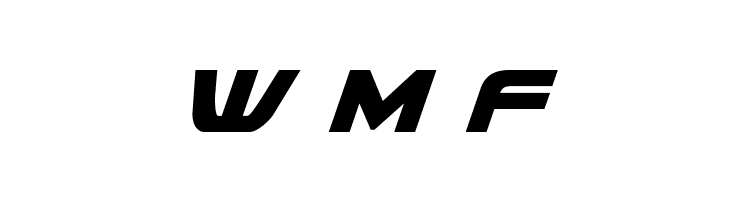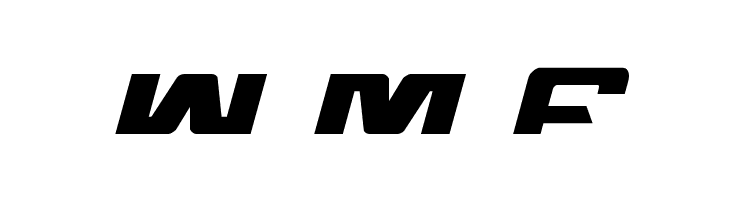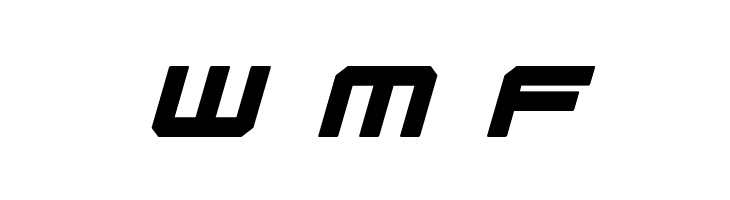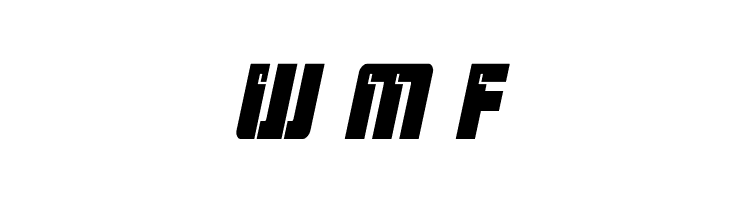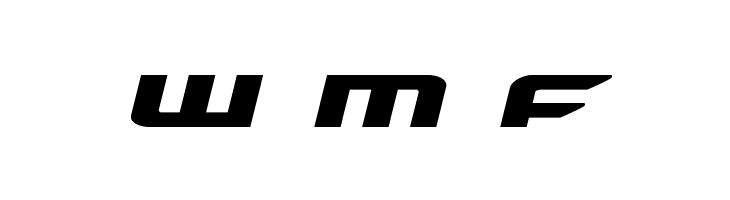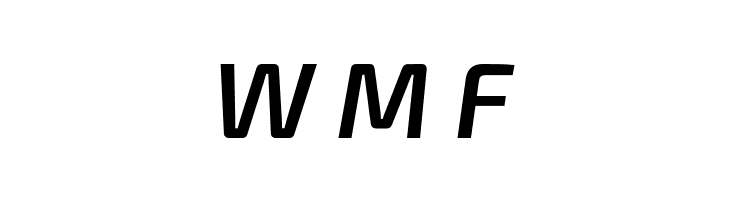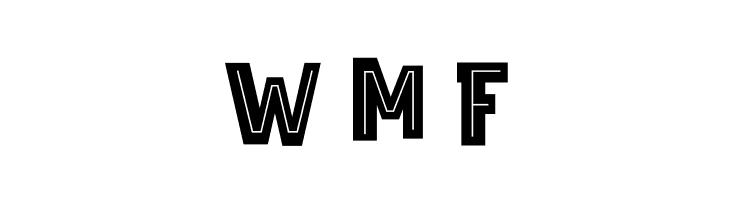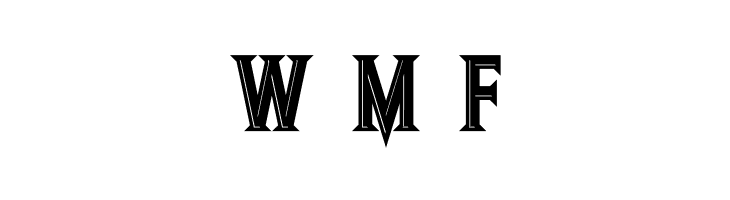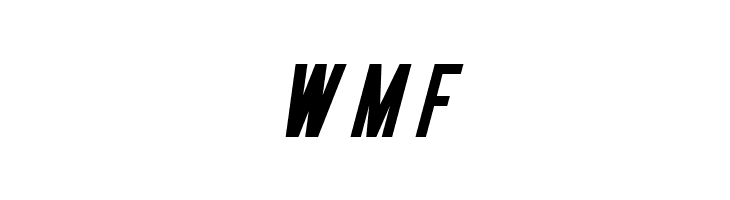
A bold, italicized font with a modern, dynamic style and medium contrast.
A bold, italicized font with sharp, angular lines and a futuristic style.
A bold, italicized font with sharp angles and a dynamic presence.
A bold, italicized font with a futuristic, angular design.
A bold, italicized, futuristic font with sharp angles and a dynamic design.
A bold, italicized font with a futuristic and dynamic design.
A bold, italicized font with angular, modern design and strong geometric structure.
A bold, italicized font with a futuristic and sporty design.
A bold, italicized font with a modern, dynamic style.
A bold, italicized font with sharp angles and a dynamic presence.
A bold, italicized font with a dynamic and energetic style.
A bold, italicized font with smooth curves and a dynamic, playful style.
A bold, italicized font with playful and dynamic letterforms.
A modern, bold italic font with smooth strokes and moderate contrast.
A bold, italic font with a modern and elegant slant.
A bold, italic font with smooth, rounded characters and a dynamic slant.
A bold, italicized font with a modern, dynamic style and consistent stroke weight.
A bold, italicized font with rounded edges and a modern, approachable style.
A bold, italicized font with strong, slanted letterforms and a clean, dynamic appearance.
A modern, bold, and italicized font with a sleek and dynamic appearance.
A modern, bold, and italic font with a sleek and dynamic style.
A modern, semi-bold italic font with a sleek and compact design.
A modern, clean, and slightly italic typeface with excellent readability.
A bold, geometric inline font with a modern and dynamic style.
A bold, inline font with a strong, geometric design and striking contrast.
Futuristic, bold inline font with geometric uppercase characters.
A bold, italicized, and condensed font with a modern and dynamic style.
A bold, italicized font with a modern, sleek, and slightly condensed style.
A bold, italicized font with a dynamic and energetic style.